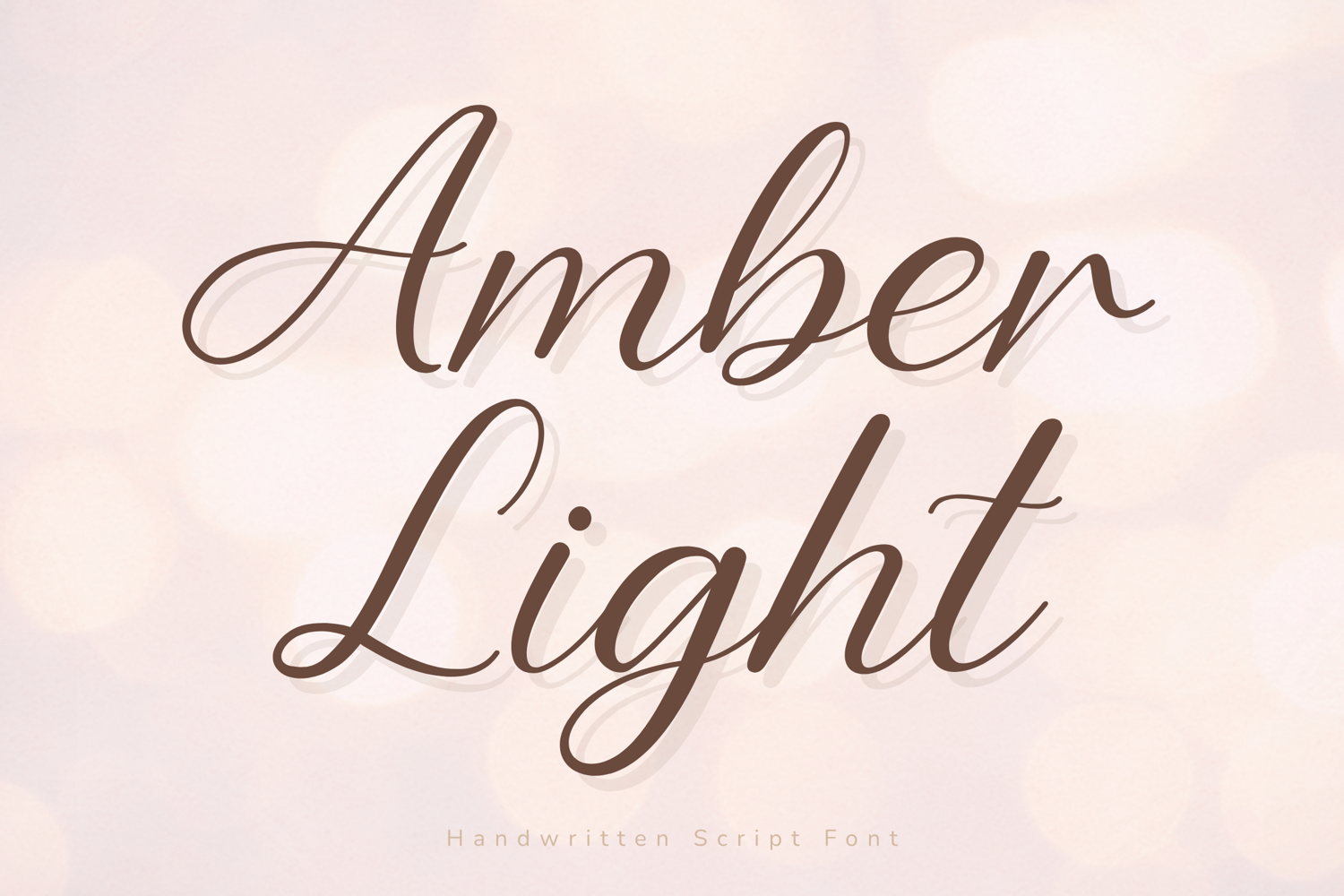
Amber Light - Elegant Handwritten Script Font
Amber Light – Elegant Handwritten Script Font
Amber Light is a graceful and elegant handwritten script font designed to bring a refined, soft, and luxurious feel to your designs. With its flowing strokes, delicate curves, and stylish swashes, this font adds a sophisticated touch while remaining warm and inviting.
Perfect for branding, weddings, and feminine designs, Amber Light creates a premium look that feels both timeless and modern.
Uppercase & lowercase letters
Elegant flowing script style
Beautiful swashes & smooth curves
Numbers, punctuation & symbols
Branding & logos
Wedding invitations
Beauty & boutique designs
Social media & Instagram posts
Packaging & product labels
Cricut & craft projects
Amber Light is designed to create a soft, elegant, and high-end aesthetic, perfect for projects that require a refined and feminine touch.